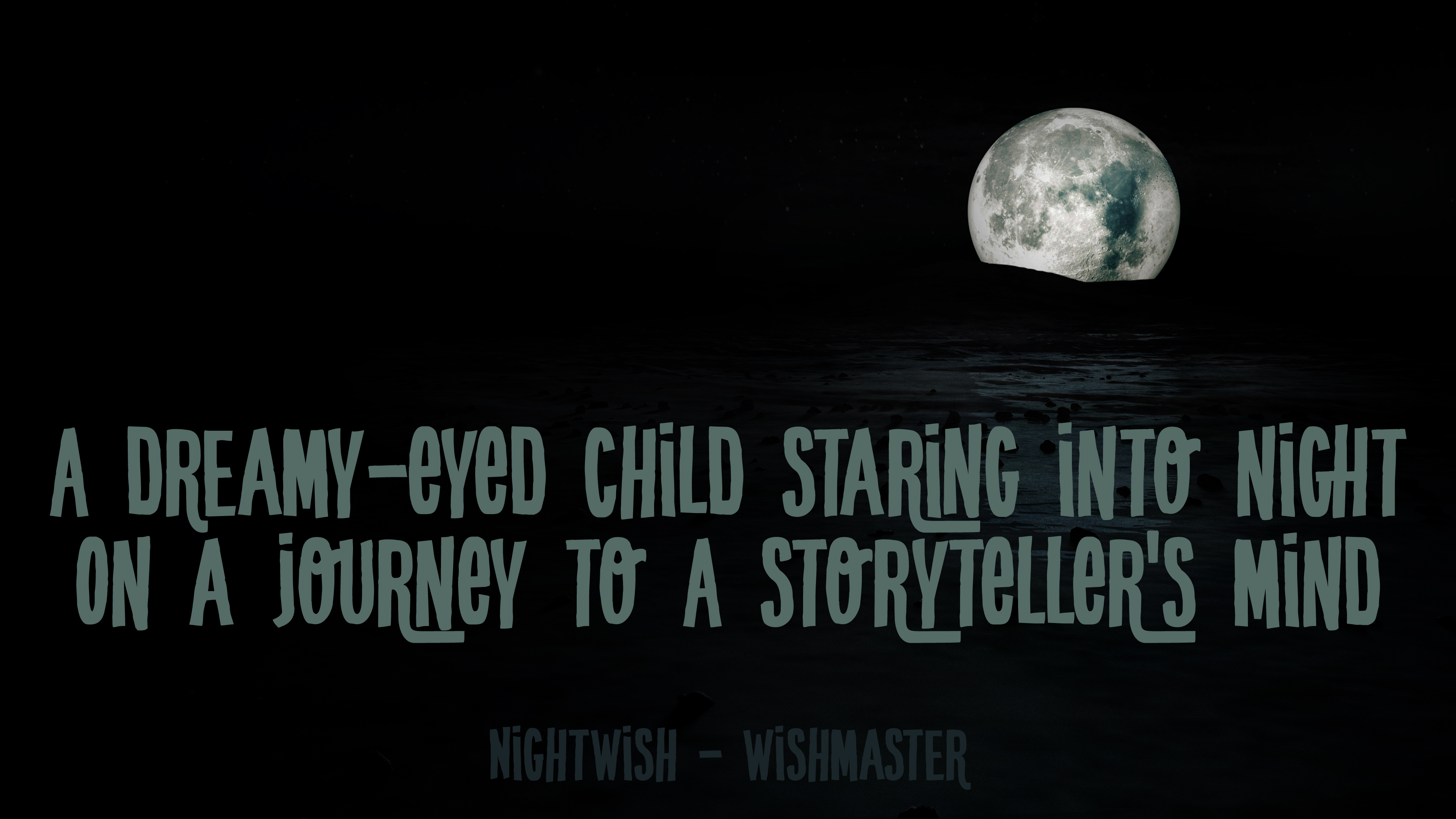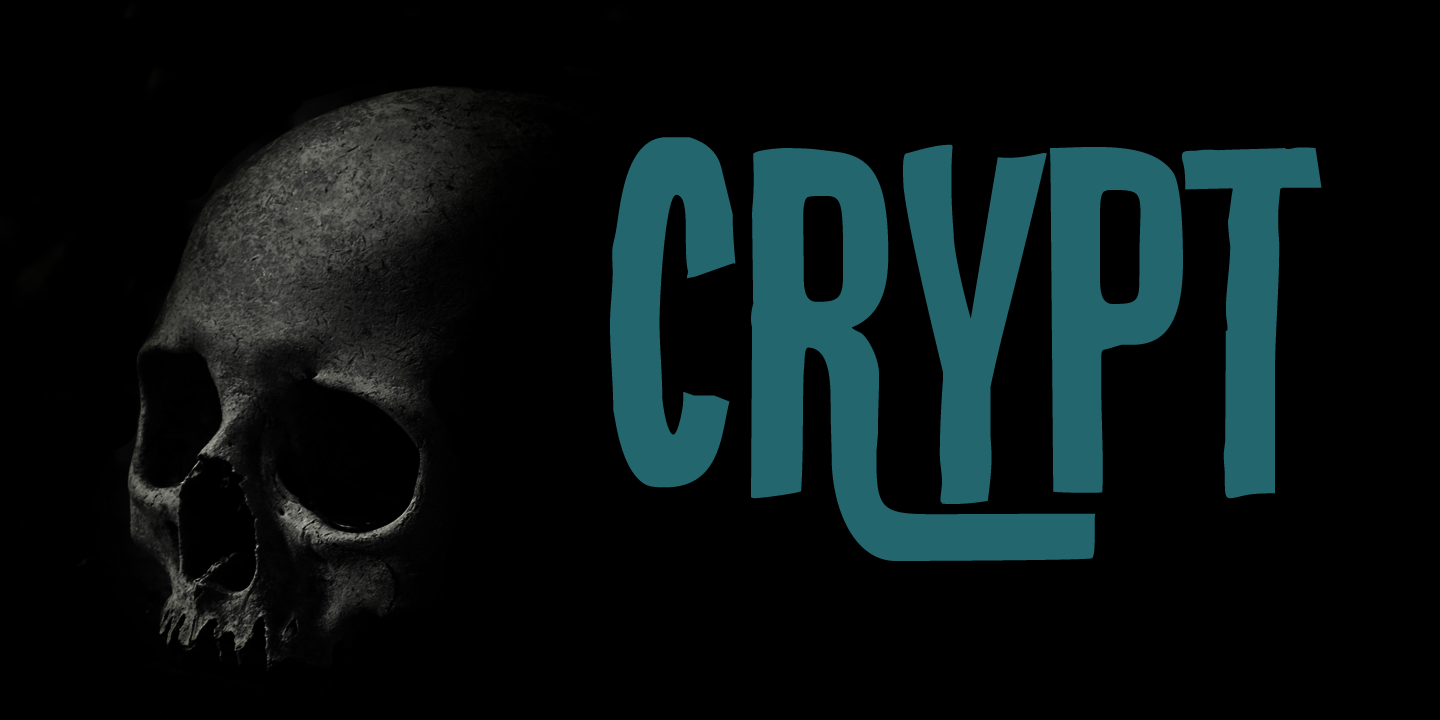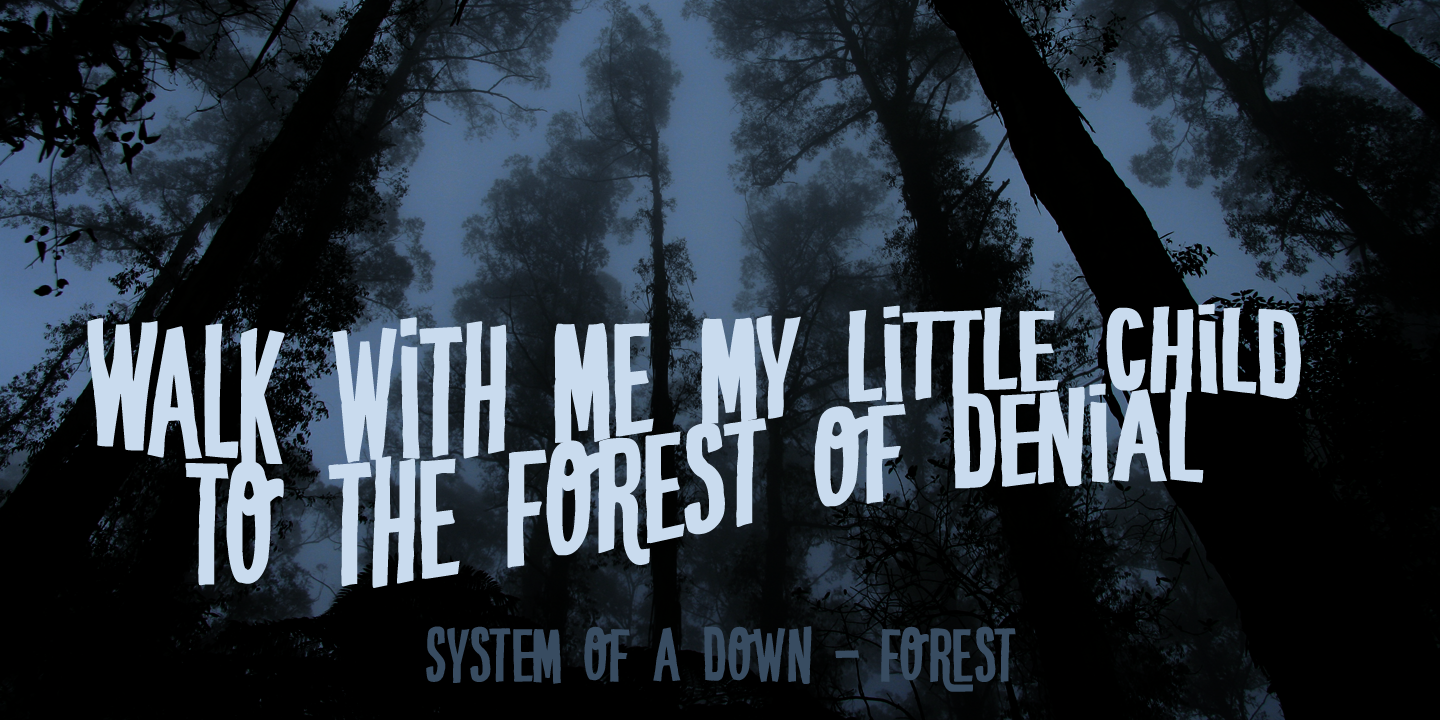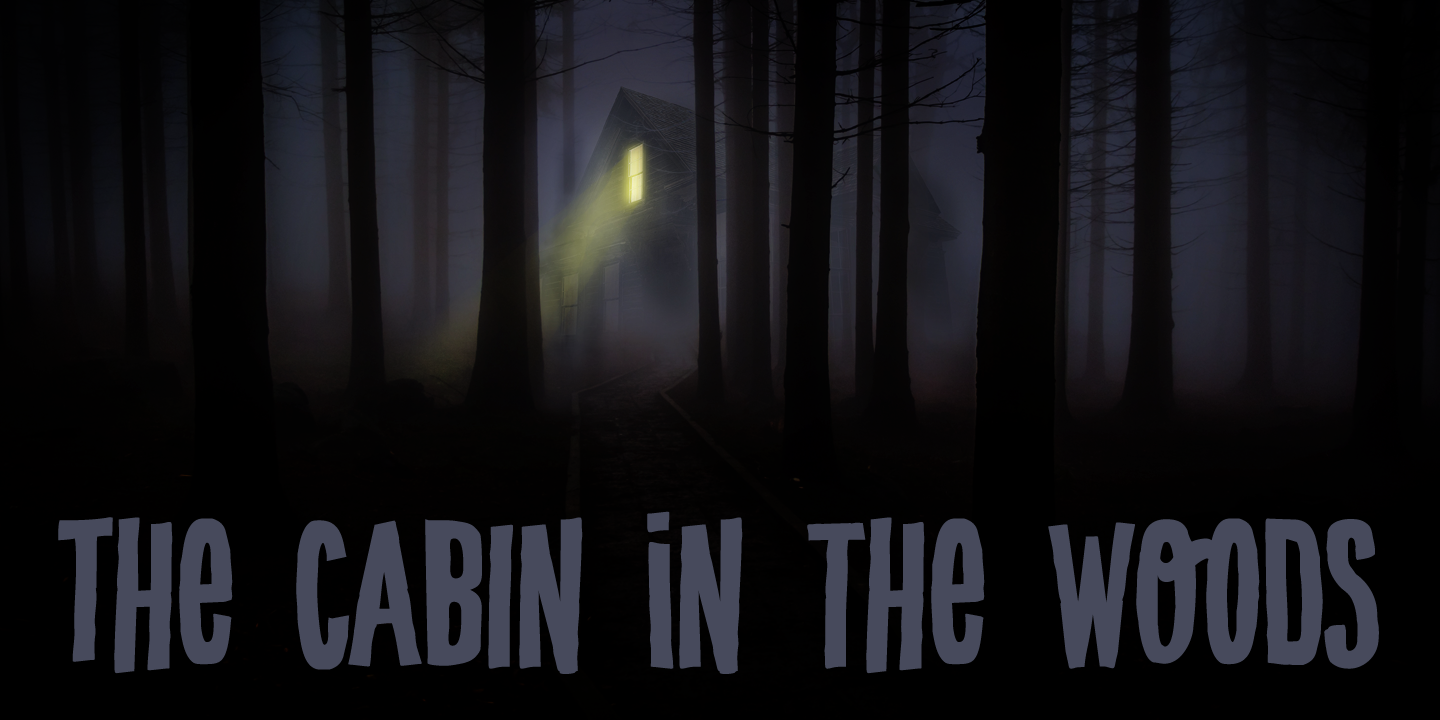
No, it won’t eat you, I’m just kidding. I just threw that in for some dramatic effect in an otherwise quite boring piece of text.
Use Crypt for book covers, posters, product packaging and magazines. I promise you that the result will be quite haunting.
Needless to say, Crypt comes with an otherworldly amount of diacritics.